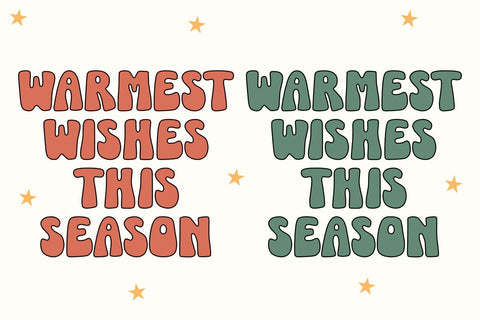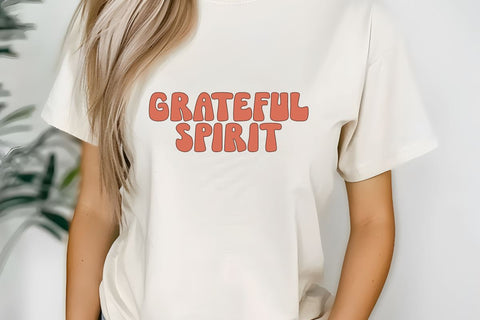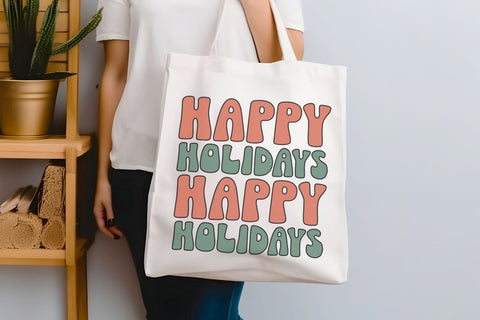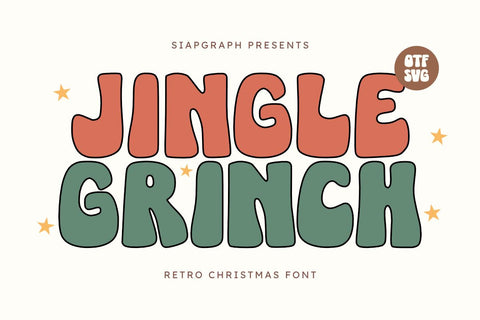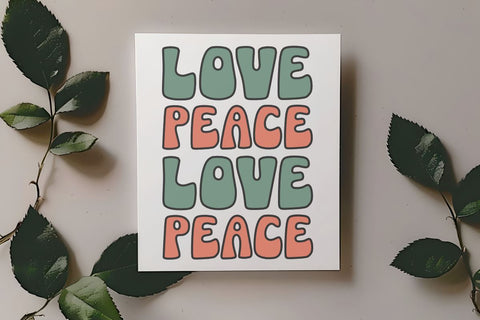
Jingle Grinch - Retro Christmas Font
Jingle Grinch is a retro groovy fun bold christmas display font. font inspired by typography on Christmas t-shirt designs. This font is very suitable for Christmas celebration needs. This font is also perfect for t-shirts, apparel, invitations, cards, celebrations, stickers, keychains, wall art, pillows, quotes, hoodies, crafts, Cricut, mugs, tumblers, sublimation, book covers and many other creative ideas. Apart from that, it is also suitable for advertising and social media.